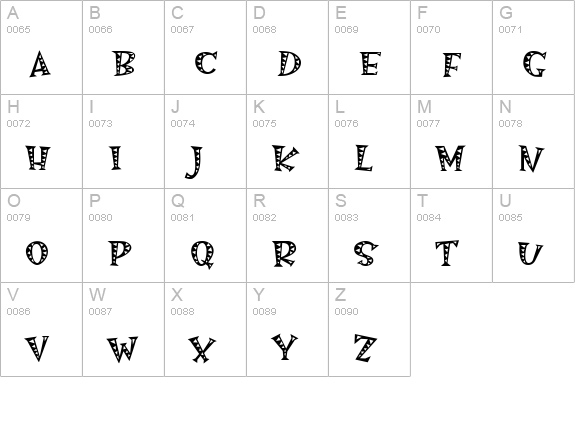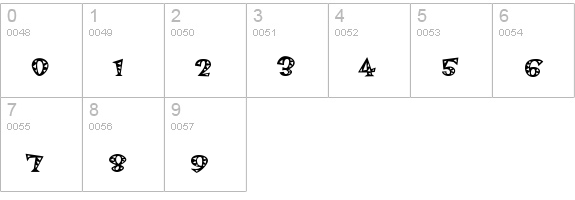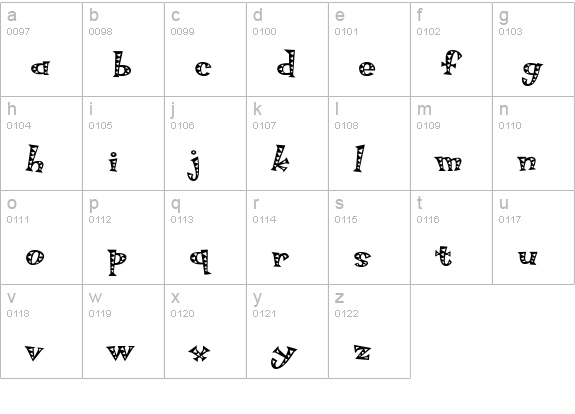
Introducing the charming and whimsical HotsyTotsy-Rocksie-MvB font, a delightful typeface that is sure to add a touch of playfulness to any design project. This unique font features quirky letterforms with a hand-drawn aesthetic, perfect for creating eye-catching headlines, invitations, and more. What's even better is that HotsyTotsy-Rocksie-MvB is available for free download at FontsMarket.com. That's right, you can effortlessly bring this fun and energetic font into your creative endeavors without breaking the bank. So why wait? Download HotsyTotsy-Rocksie-MvB today and let your imagination run wild with its creative possibilities!